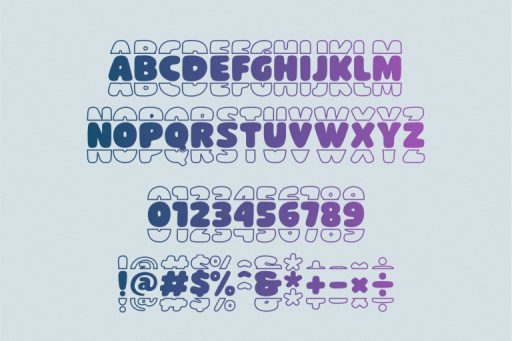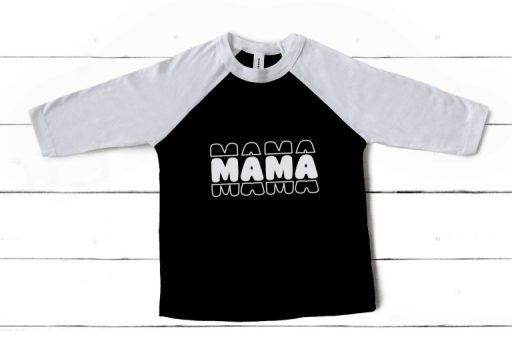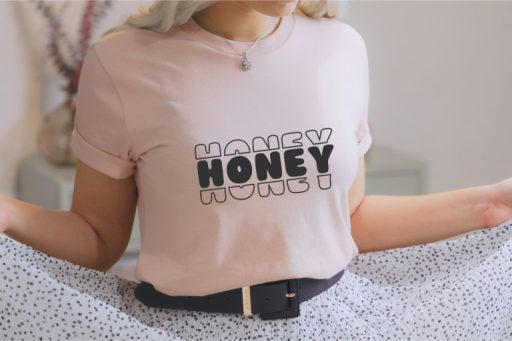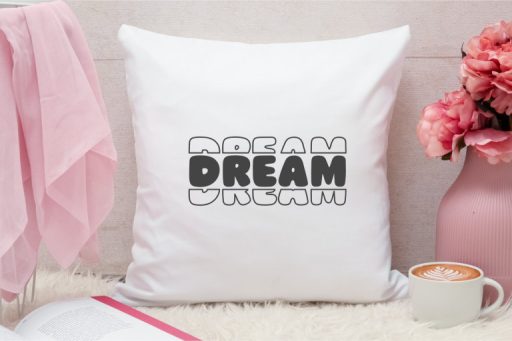
Jollyfun - Stacked Cricut Font from Jimtype Studio
Jollyfun Font
Jollyfun – Stacked Font from Jimtype Studio
Welcome to ‘Jollyfun‘ Stacked Font – your ticket to a world of playful creativity! This font is tailor-made for Cricut enthusiasts and anyone who wants to infuse their designs with a dose of fun. ‘Jollyfun‘ Font is perfect for stacking letters and creating eye-catching, whimsical designs. Explore our font collection today and let your imagination run free with ‘Jollyfun.